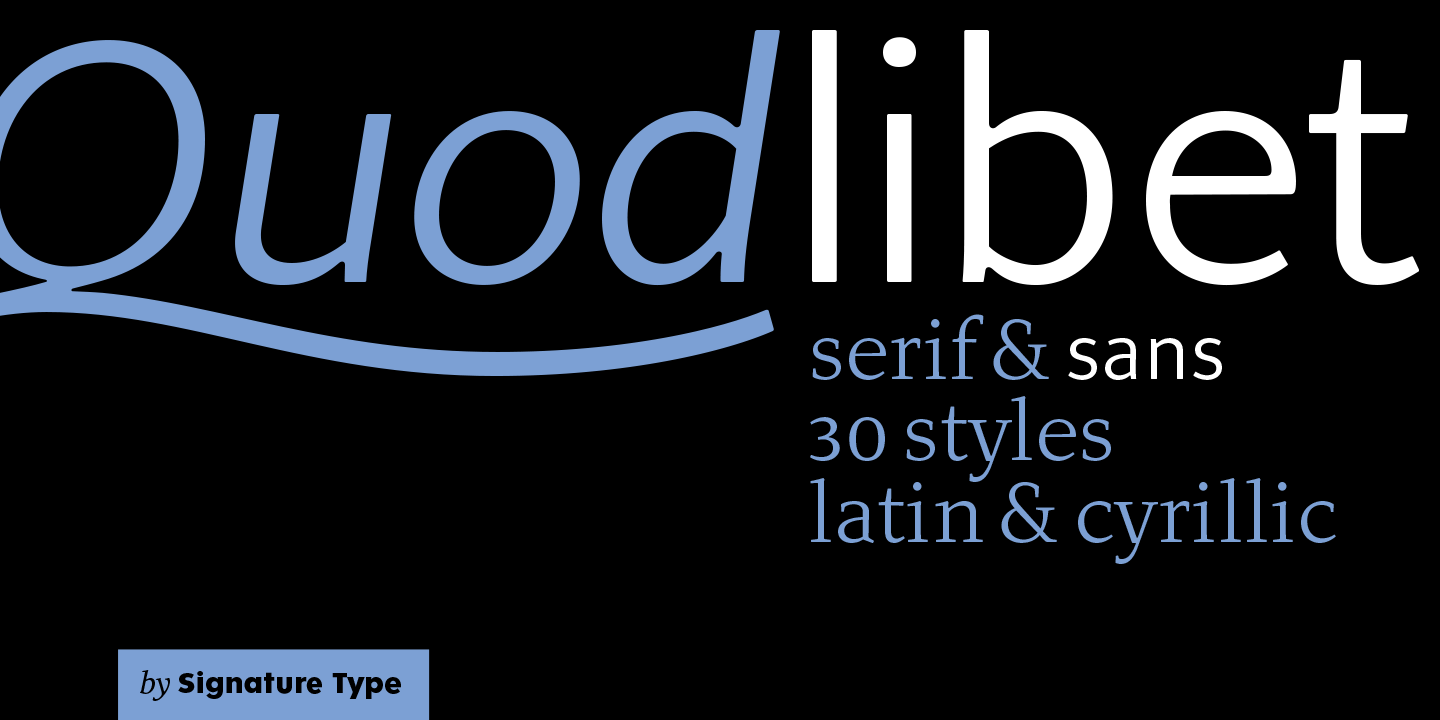
Quodlibet Sans Font is perfect for academic publications, scholarly articles, university branding, philosophical texts, intellectual magazines, research documentation, educational materials, and sophisticated editorial layouts.
What makes Quodlibet Sans Font exciting is its scholarly elegance that embodies intellectual discourse and academic excellence through refined letterforms. The sophisticated sans-serif design and classical proportions create an atmosphere of learned authority while maintaining exceptional readability for complex scholarly content.
Quodlibet Sans Font family includes thin, light, regular, medium, bold, and black weights, each available in regular and italic styles, plus extended character sets with academic symbols and scholarly notation systems.
Elevate intellectual discourse with Quodlibet Sans Font Free Download, the definitive choice for projects requiring scholarly sophistication and academic credibility. This distinguished typeface embodies the essence of higher learning through letterforms that seem crafted for philosophical contemplation and rigorous intellectual exploration. The expertly balanced characters feature classical proportions that ensure outstanding legibility even in dense academic texts while projecting the authority that scholarly work demands. Universities and academic institutions consistently select this font for projects requiring the perfect balance of intellectual gravitas and contemporary accessibility that modern education requires. Its comprehensive character system provides unlimited possibilities for complex scholarly notation while maintaining consistent elegance throughout extensive academic hierarchies. Experience the perfect synthesis of classical learning and modern functionality that transforms ordinary academic communications into expressions of intellectual excellence, establishing your institution as a beacon of scholarly distinction in today's competitive educational landscape.